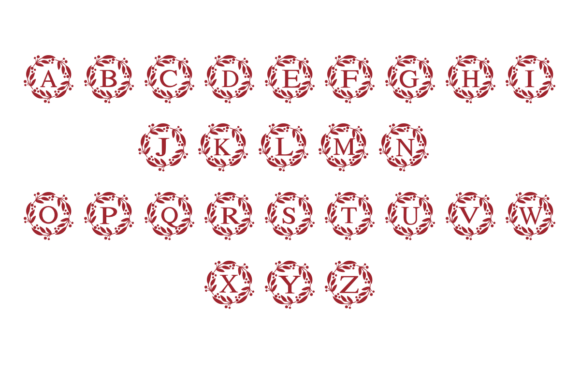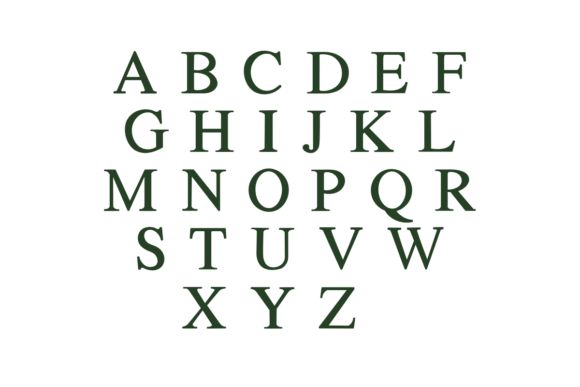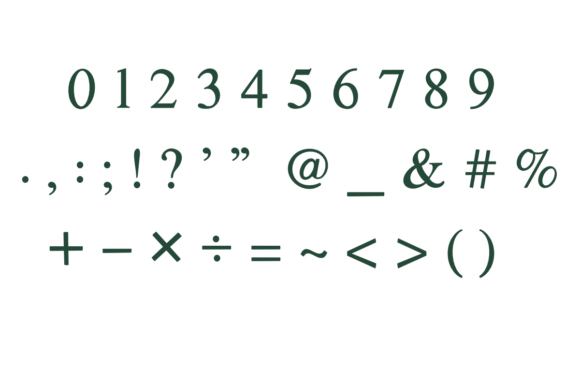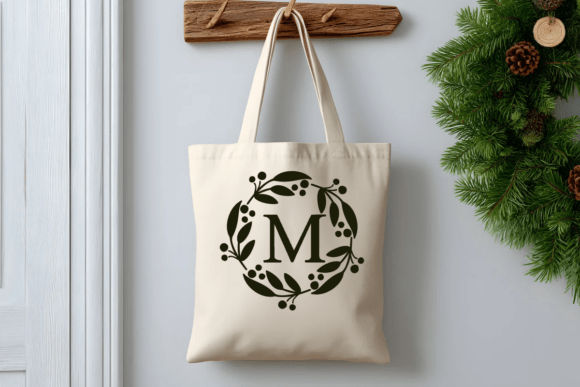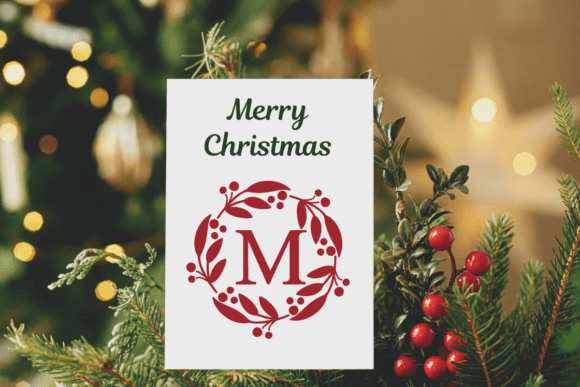
Christmas Holly Font: A Delicate and Elegant Decorative Font for Your Creative Projects
Are you looking for a font that captures the essence of Christmas and adds a touch of elegance to your creative projects? Look no further than the Christmas Holly Font! This beautiful decorative font is perfect for designers and crafters who want to create stunning holiday-themed designs that will leave a lasting impression.
What is Christmas Holly Font?
Christmas Holly Font is a delicate and elegant decorative font that is inspired by the traditional Christmas holly plant. The font features intricate and detailed designs that resemble the leaves and berries of the holly plant, making it a perfect choice for Christmas-themed designs.
Features of Christmas Holly Font
- Delicate and Elegant Design: The Christmas Holly Font features a delicate and elegant design that is perfect for creating sophisticated and stylish holiday-themed designs.
- Intricate Details: The font features intricate details that resemble the leaves and berries of the holly plant, adding a touch of realism to your designs.
- High-Quality: The font is of high quality, making it perfect for use in a variety of creative projects, including digital designs, print materials, and crafts.
Uses of Christmas Holly Font
Christmas Holly Font is a versatile font that can be used in a variety of creative projects, including:
- Holiday Cards and Invitations: Add a touch of elegance to your holiday cards and invitations with the Christmas Holly Font.
- Digital Designs: Use the font in your digital designs, such as social media graphics, blog posts, and website headers.
- Print Materials: Use the font in your print materials, such as brochures, flyers, and posters.
- Crafts: Use the font in your crafts, such as scrapbooking, card making, and DIY projects.
Why Choose Christmas Holly Font?
There are many reasons why you should choose Christmas Holly Font for your creative projects. Here are a few:
- Unique and Eye-Catching: The font is unique and eye-catching, making it perfect for creating designs that stand out.
- High-Quality: The font is of high quality, ensuring that your designs look professional and polished.
- Elegant and Sophisticated: The font is elegant and sophisticated, making it perfect for creating designs that are both stylish and festive.
Tips for Using Christmas Holly Font
Here are a few tips for using Christmas Holly Font in your creative projects:
- Use it Sparingly: Use the font sparingly to add a touch of elegance to your designs. Overusing the font can make your designs look cluttered and overwhelming.
- Pair it with Other Fonts: Pair the Christmas Holly Font with other fonts to create a unique and interesting design.
- Experiment with Colors: Experiment with different colors to find the perfect combination that complements the font.
Christmas Holly Font is a beautiful and elegant decorative font that is perfect for designers and crafters who want to create stunning holiday-themed designs. With its delicate and intricate design, high-quality, and ease of use, this font is sure to become a favorite in your creative projects. So why wait? Add Christmas Holly Font to your creative projects today and see the amazing results for yourself!